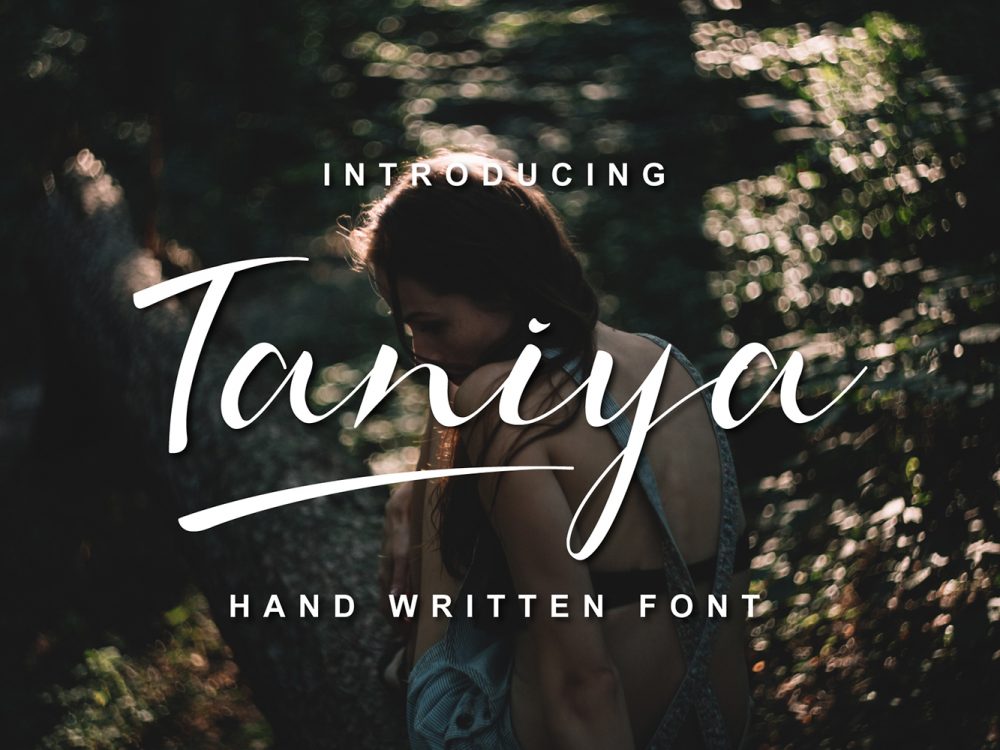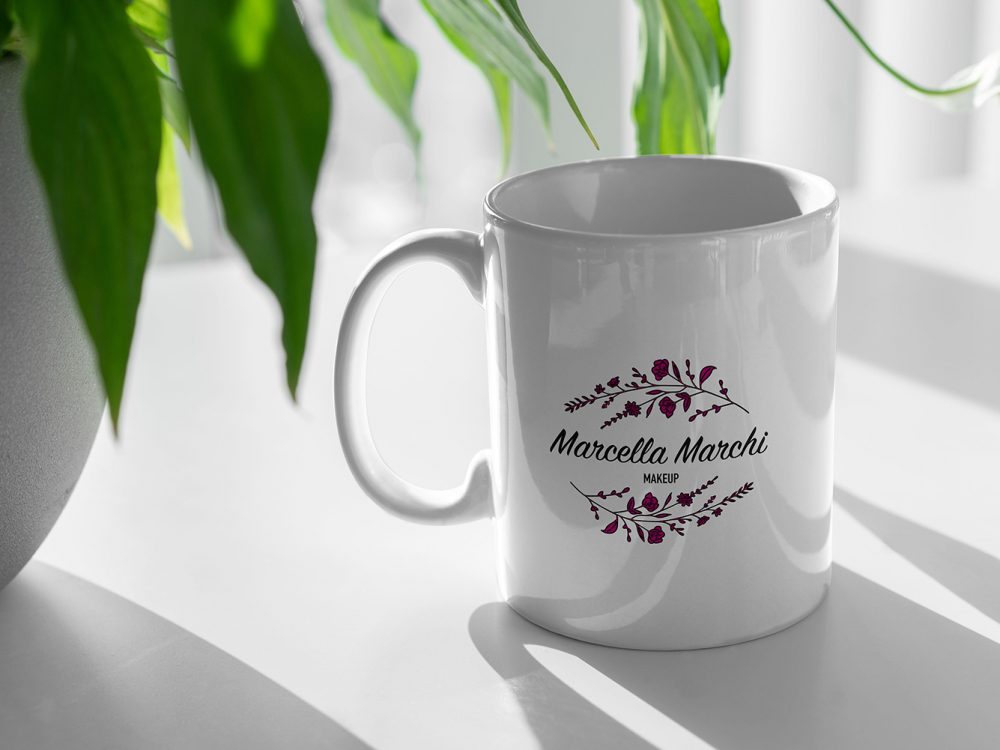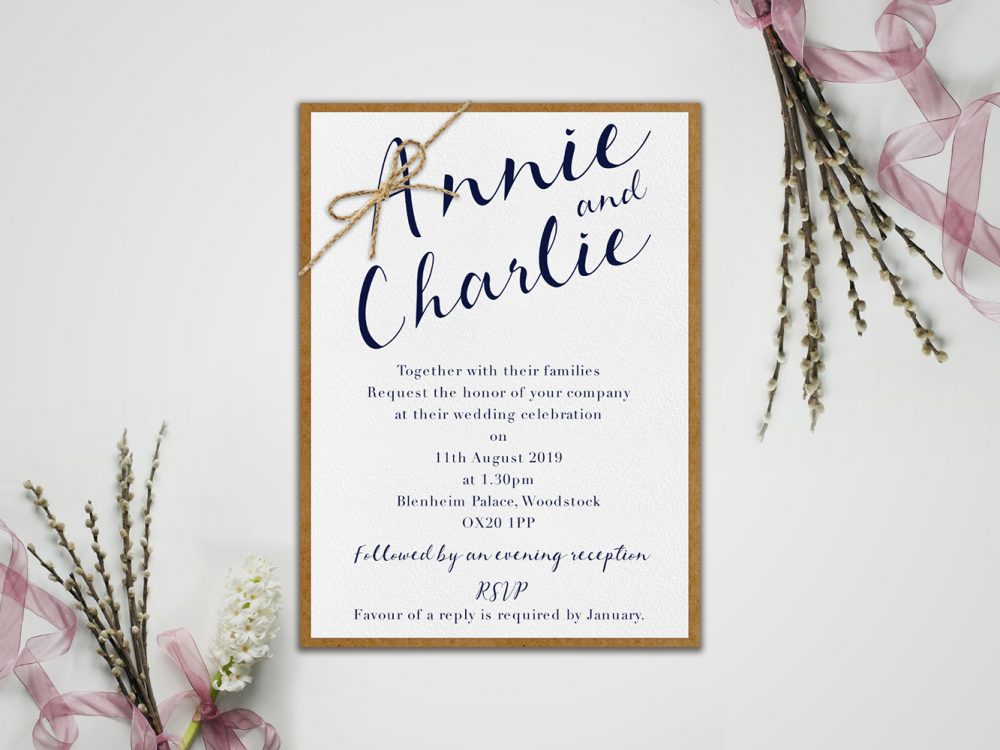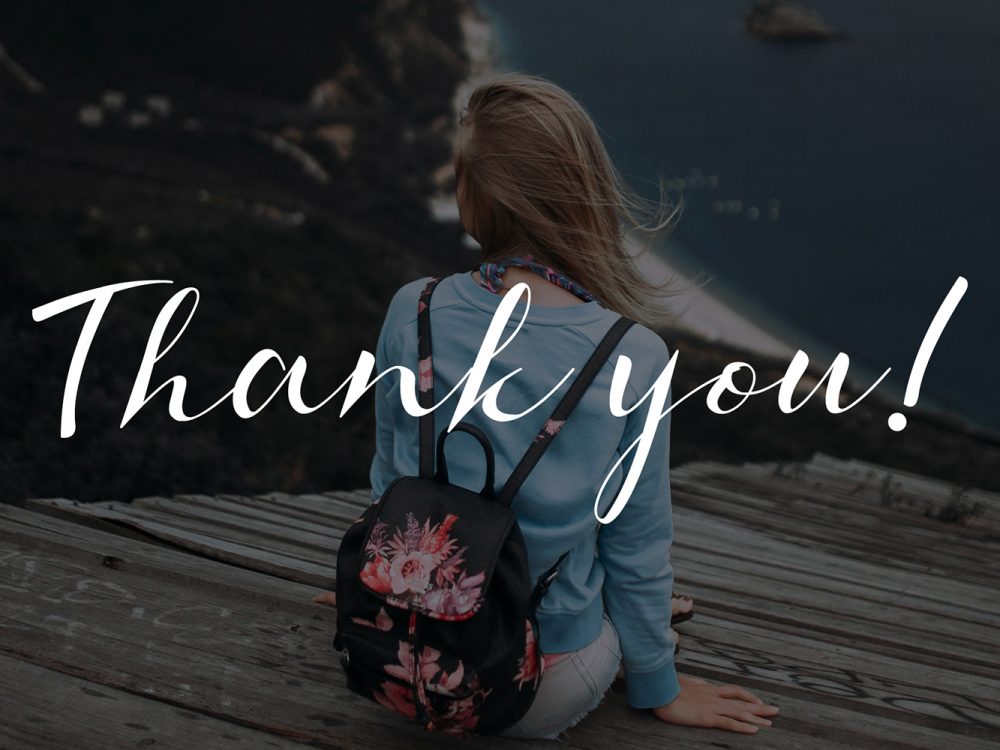
Taniya Handwritten Font Demo
Taniya Handwritten Font Demo is an interesting modern handwritten font that stands out from others with its elegant style and thin lines. This font is perfect for a variety of design projects such as posters, wedding invitations, cards, branding, flyers, prints, and more. Improve the quality and appeal of your designs with this elegant font. If you wish to access more features and use them for commercial work, go get the full version.